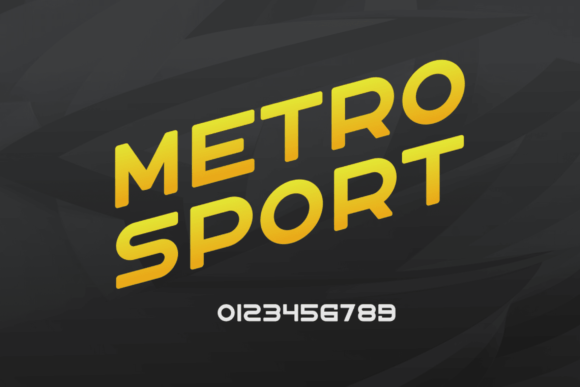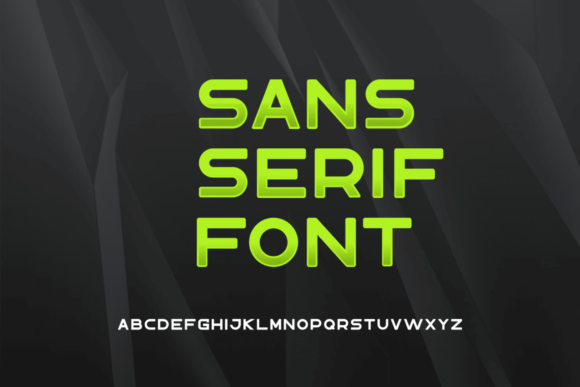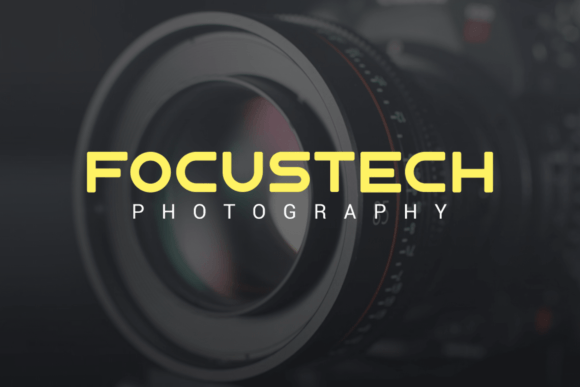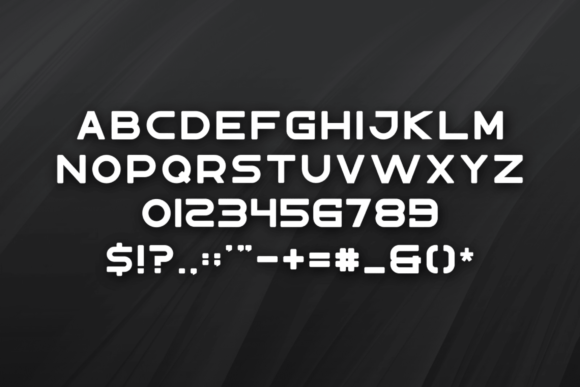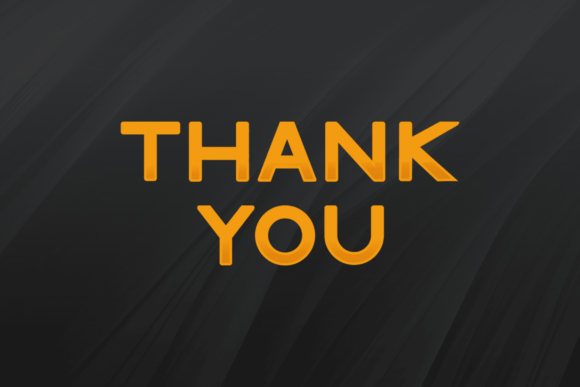
Introduction to Progex Font
Have you ever stared at a blank canvas, waiting for the perfect font to bring your creative project to life? It’s that moment when the right design element can make all the difference. For designers, finding the perfect font can be a game-changer. It’s a key to unlocking the true potential of their work.
That’s where Progex Font comes in – a bold and authentic sans-serif font that’s sure to elevate any design project. Whether you’re working on a branding project, designing a logo, or printing a t-shirt, Progex Font is the perfect companion. Its versatility makes it a valuable resource for designers, and with its high-quality design, it’s a must-have in any design toolkit.
What sets Progex Font apart is its ability to shine in a wide range of contexts, from a transparent background to a bold, eye-catching display. And the best part? It’s available for free download, making it an accessible design resource for creatives of all levels.
Key Features of Progex Font
- High-quality design resource with a unique aesthetic, ideal for creative projects
- Transparent background option for seamless integration into any design
- Designed with a high-resolution (300 DPI) for crisp and clear display
- Perfect for designers and artists looking for a distinctive and creative font
Honest Review: Progex Font
As a designer, I’m always on the lookout for high-quality design resources that can elevate my creative project. Recently, I stumbled upon the Progex Font, and I must say, it’s been a game-changer.
Here are some of the things that I love about the Progex Font:
- ✨ Unique and futuristic design style that adds a touch of sophistication to any project
- ✨ High-quality font that’s perfect for both digital and print projects
- ✨ Transparent background, allowing for seamless integration with any design
- ⚠️ Limited font weights and styles, which might not be suitable for projects that require a lot of font variation
- ⚠️ Not as versatile as some other fonts, which might limit its use in certain creative projects
Overall, I’m impressed with the Progex Font. Its unique design style and high-quality make it an excellent addition to any designer’s toolkit. While it may have some limitations, I believe it’s a great resource for designers who want to add a touch of futurism to their projects. If you’re looking for a free and high-quality font, I highly recommend giving the Progex Font a try.
Tips for Getting the Most Out of Progex Font
Experiment with different font sizes, colors, and styles to create a unique design. Use the transparent background feature to add depth and visual interest to your project. Combine Progex Font with other design resources to create a cohesive and engaging design.
Progex Font is ideal for creative projects, such as logos, posters, and brochures. It’s also suitable for presentations, reports, and other documents that require a professional look. With its high-quality design and transparent background feature, Progex Font is a valuable addition to any design resource library.
Is the Progex Font suitable for high-resolution designs?
Yes, the Progex Font is designed to be high-quality and scalable, making it suitable for use in high-resolution designs, such as those intended for print or digital signage. The font’s clear and legible design ensures that it will remain crisp and readable even at large sizes and high resolutions.